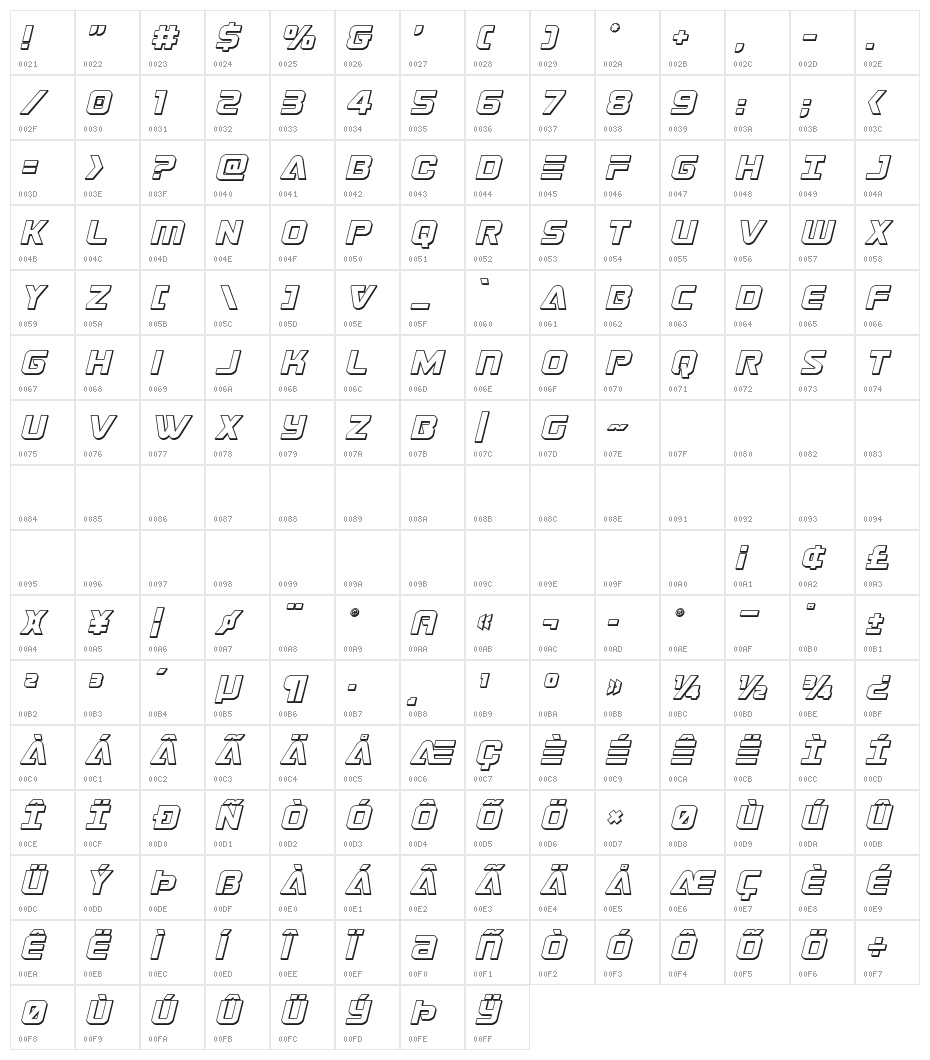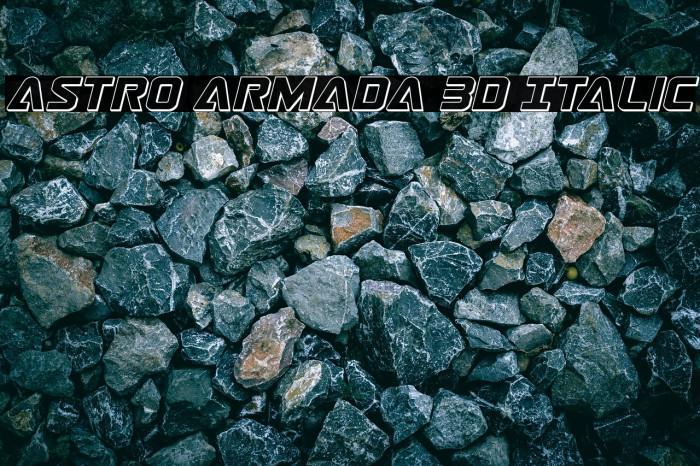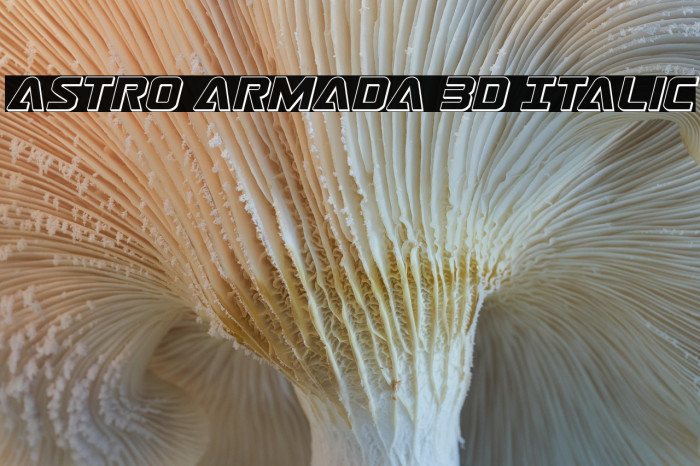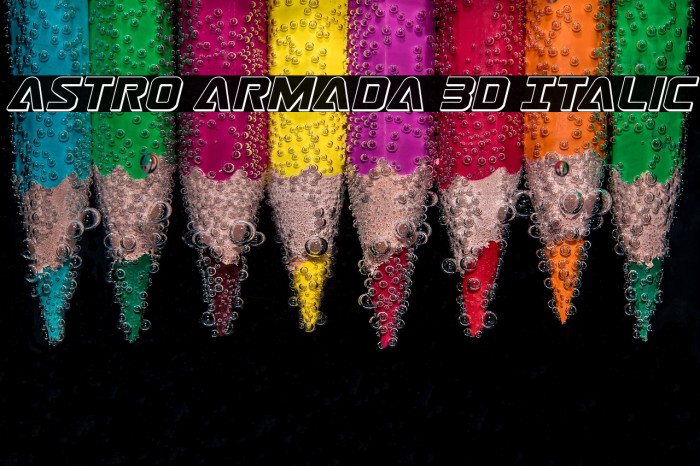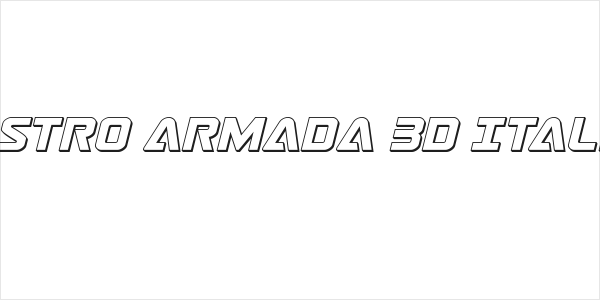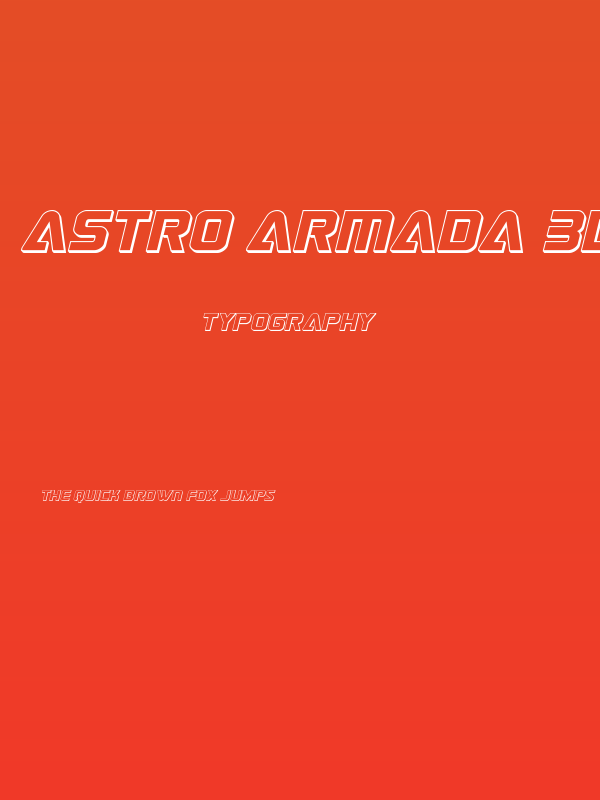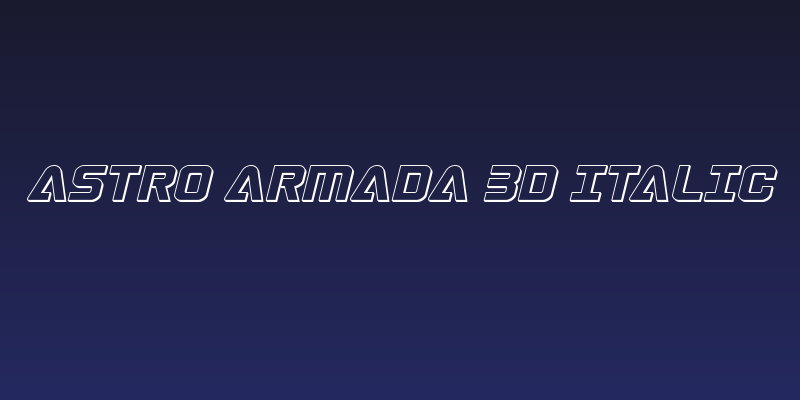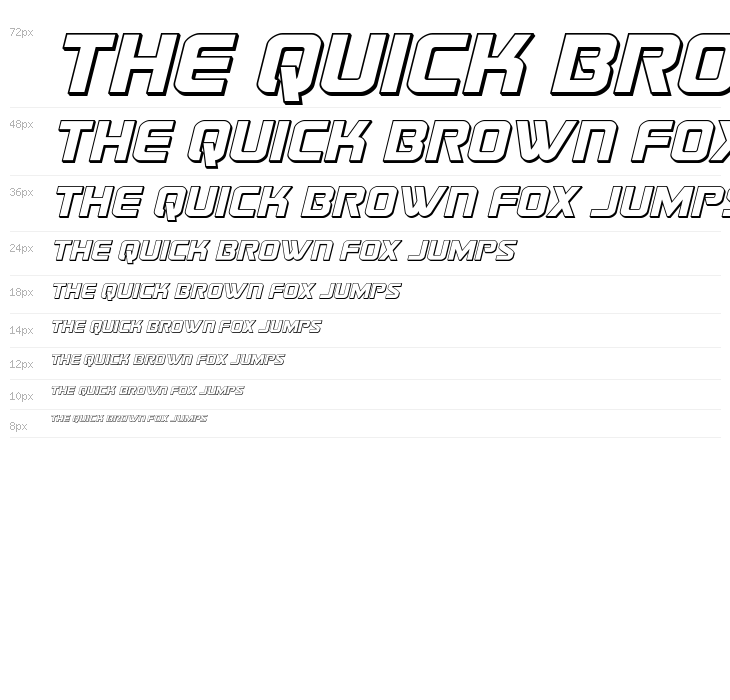
Astro Armada 3D Italic Font
Astro Armada 3D Italic Description
This font features a futuristic and dynamic design, characterized by its bold, three-dimensional appearance. The letters are outlined, giving them a hollow look that enhances their modern and tech-inspired aesthetic. The italic slant adds a sense of motion and speed, making it ideal for projects that require a forward-thinking and energetic vibe. The uppercase and lowercase letters maintain a consistent style, with angular edges and geometric shapes that contribute to its distinctive look. The numbers and special characters are designed to match the overall theme, ensuring a cohesive appearance across all text elements.